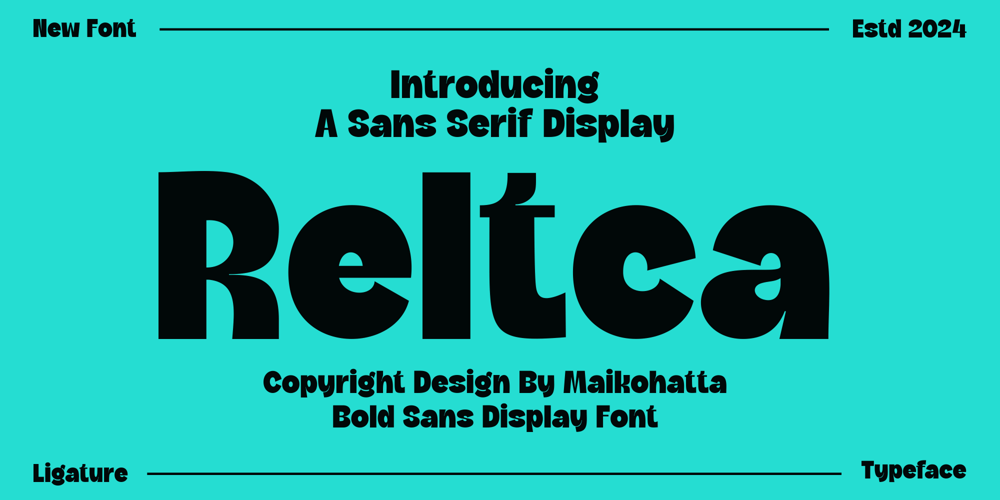
Reltca
Reltca font
Reltca Font Family was designed by Gilang Ternadho and published by Maikohatta. Reltca contains 1 styles and family package options. Introducing our new product Reltca – Sans Serif Display FontThis Font is a very flexible choice and can be used in a variety of design contexts. Its ability to provide a clean, professional, contemporary look and its simplicity and visual appeal make this font good for use in the world of graphic design and modern typography.